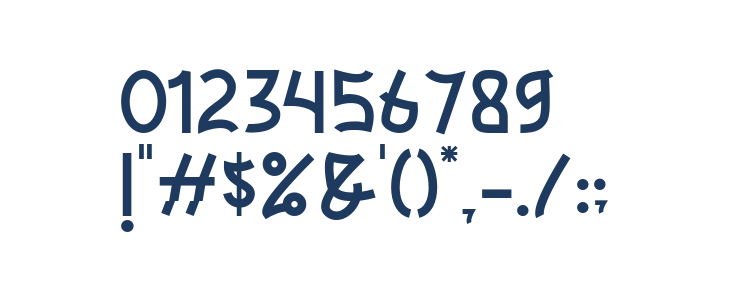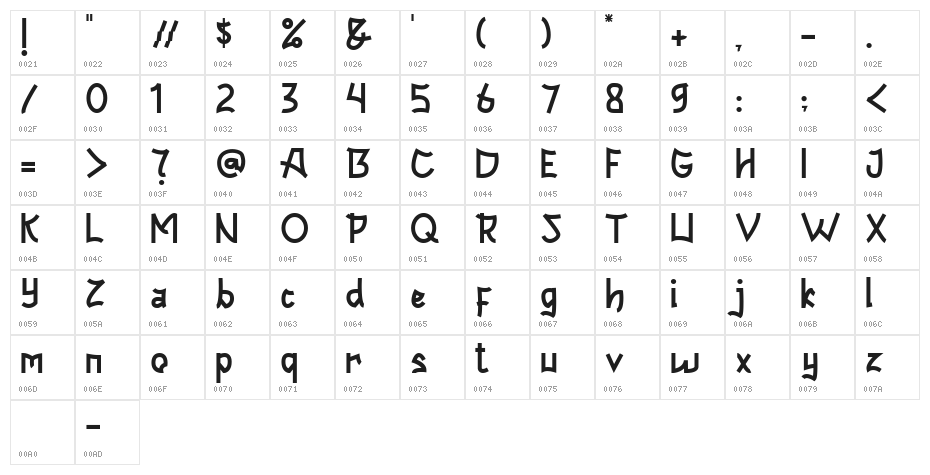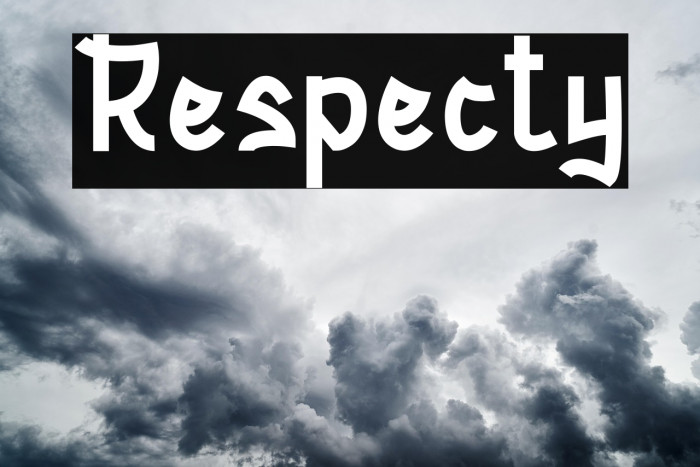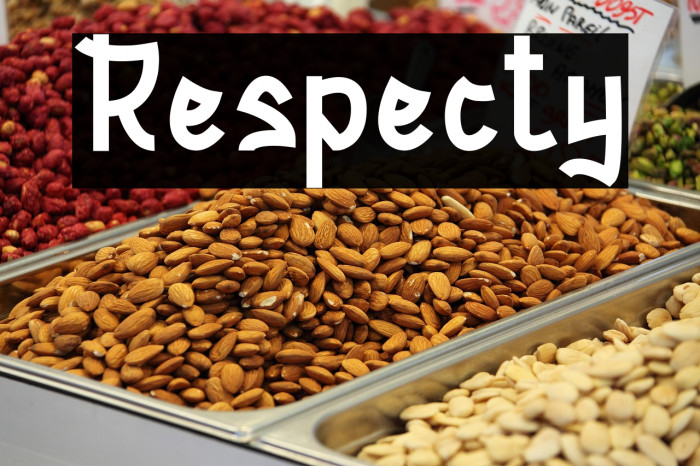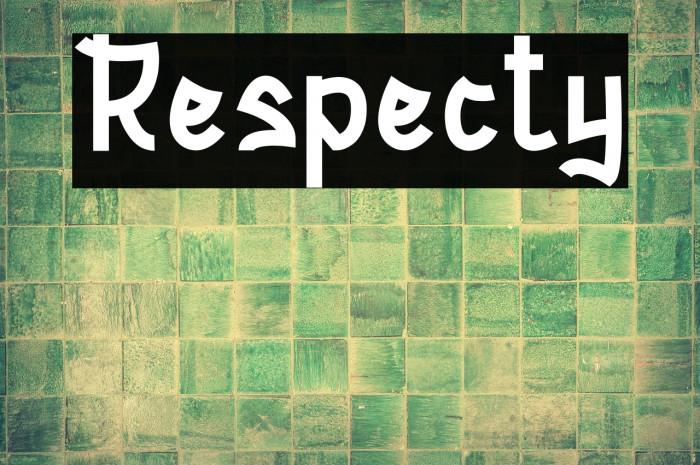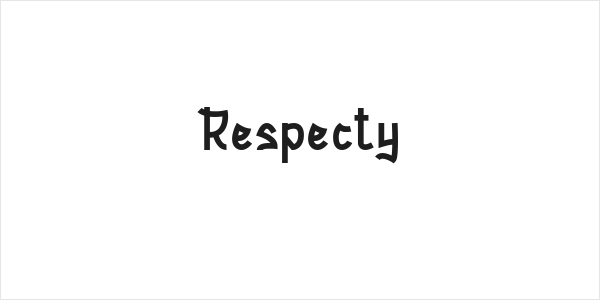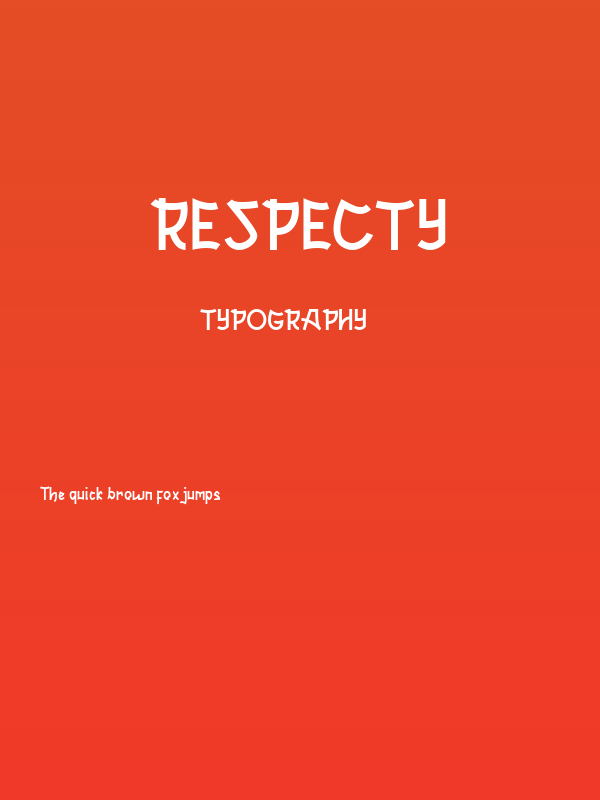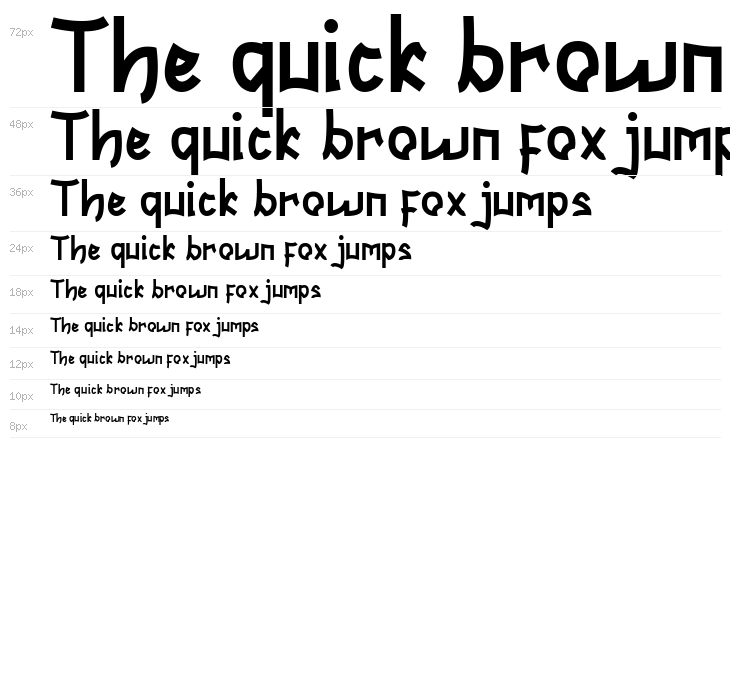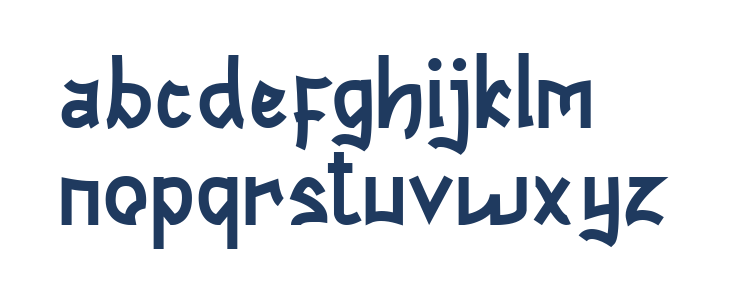
Respecty Font
Respecty Description
This font features a playful and whimsical design with a hand-drawn aesthetic. The characters have a unique, slightly irregular shape that adds a sense of fun and creativity. The uppercase letters are bold and dynamic, while the lowercase letters maintain a consistent style with a slightly more relaxed form. Numbers and special characters follow the same playful theme, making the font versatile for various creative projects. The strokes are consistent in thickness, providing a balanced look that is both eye-catching and readable.
| Overall Style | Whimsical, Creative |
| Proposed Projects | Ideal for children's books, playful branding, creative posters, and artistic projects. |